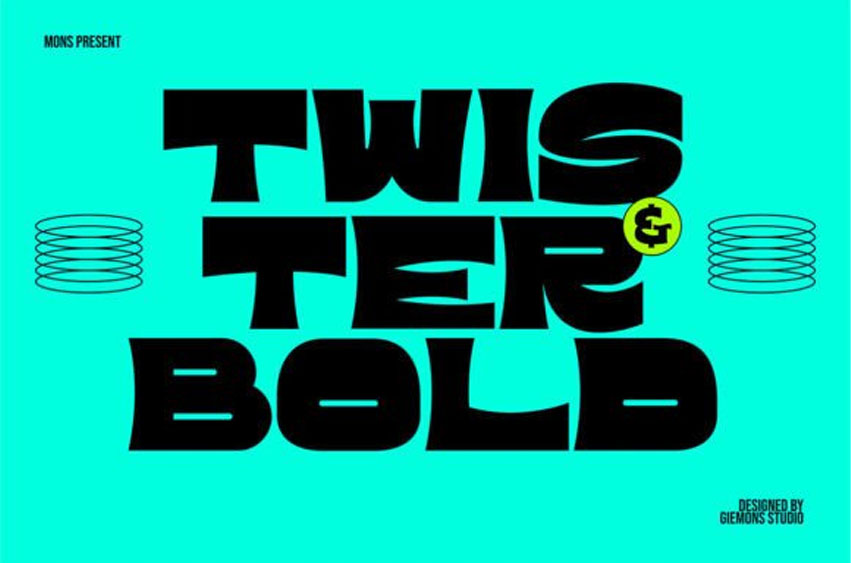
Twister Bold Font
Twister Bold Font is a striking and dynamic display font with an ultra-bold and edgy style. Perfect for eye-catching posters, branding, album covers, sports designs, and modern streetwear, this font commands attention with its thick letterforms and bold attitude.
Add power and energy to your projects with Twister Bold!